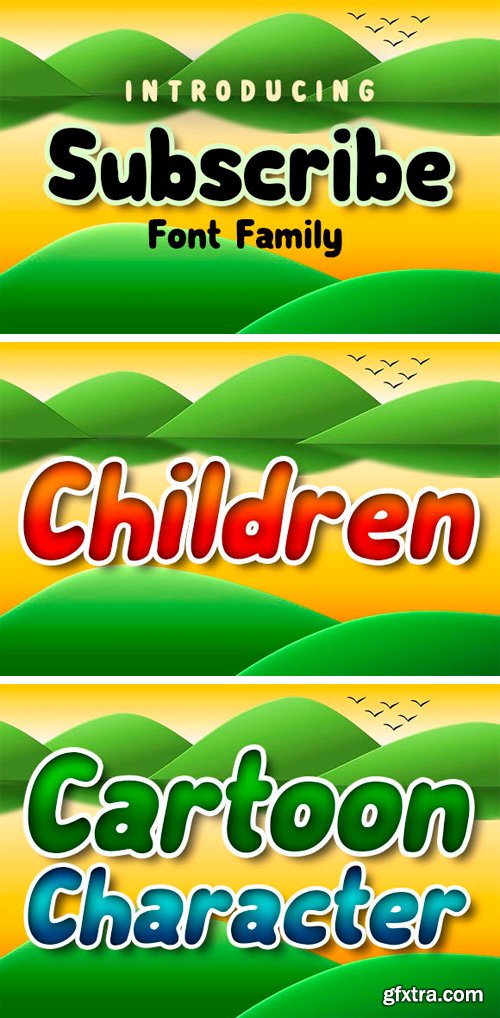
订阅字体家族
Subscribe Font Family
The Subscribe is awesome cartoon style font family. It has a striking style which is perfect for posters, banners, prints, and much more!